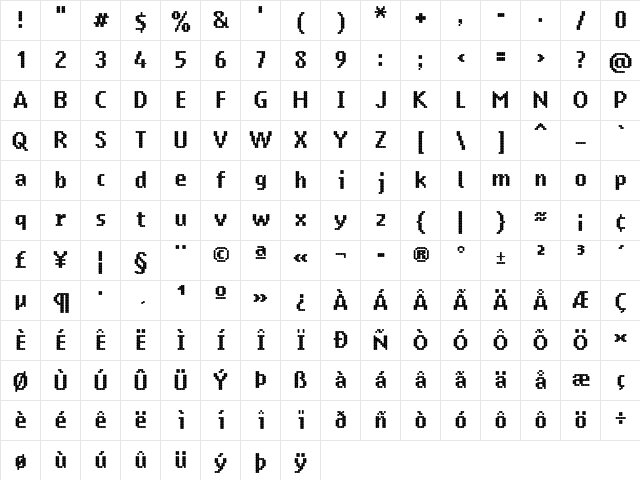
14 LED Phattt Heavy
| Foundry | Peter Wiegel |
| Designer | Peter Wiegel |
Design Context for 14 LED Phattt Typeface
14 LED Phattt offers clean, dependable letterforms without strong stylistic allegiance, making it a practical choice for designers who need flexibility.